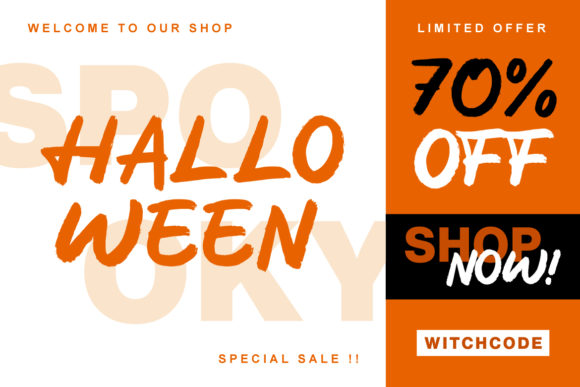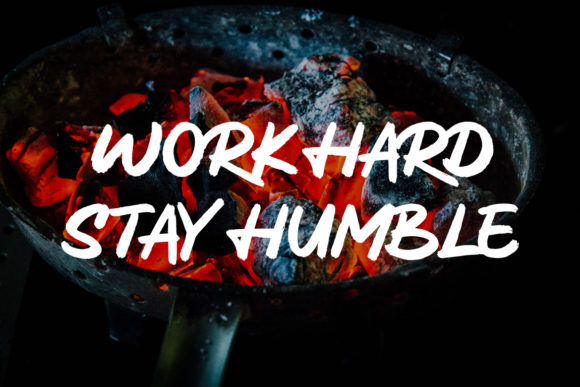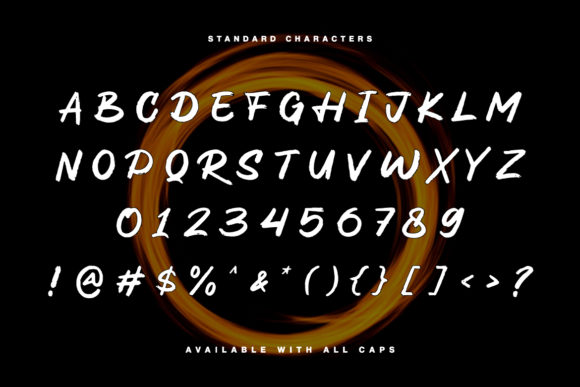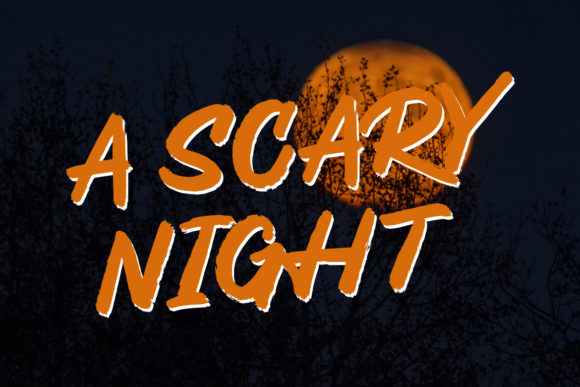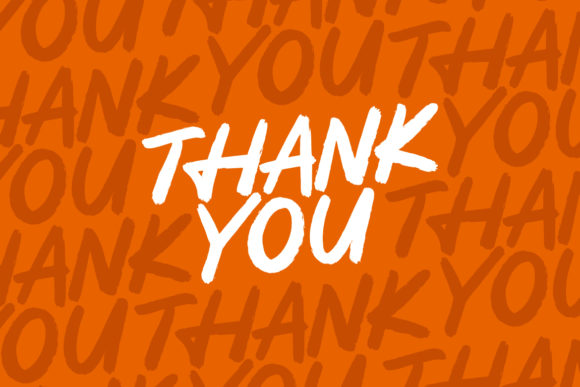
Saverous Font
About Saverous Font
Saverous is an extraordinary handwritten typeface that stands out with its distinct and one-of-a-kind charm. This font serves as the perfect companion to breathe life into your DIY projects, adding a touch of creativity and elegance to every endeavor.
The uniqueness of Saverous lies in its carefully crafted characters, each carrying an air of authenticity and creativity. Whether you’re designing personalized crafts or artistic creations, this font’s individuality sets your projects apart, making them truly special.
With Saverous at your disposal, your DIY projects are elevated to a whole new level. Its gorgeous strokes and artistic flourishes infuse a sense of beauty and sophistication, making your creations shine with originality.
This font’s versatility knows no bounds, as it complements a wide range of DIY projects. From handmade greeting cards to custom wall art, Saverous adds a touch of elegance and personalization, making your creations resonate with the heart and soul of your artistic vision.
Beyond its aesthetic appeal, Saverous ensures readability, making it ideal for conveying messages and expressions through the written word. Its handwritten nature brings a warmth and genuineness that captivates the reader, making them feel connected to your project on a deeper level.
Whether you’re an experienced designer or just starting your creative journey, Saverous empowers you to explore new horizons in DIY projects. Its unique style sparks inspiration, encouraging you to venture into uncharted territories of creativity and design.
When used in digital formats, Saverous retains its charm, adding an artistic touch to your online presence. Whether it’s on social media graphics or blog headers, the font’s allure captures the attention of viewers, leaving a lasting impression.
In summary, Saverous is a font that celebrates individuality and creative expression. Its unique handwritten style adds an exquisite touch to your DIY projects, making them come alive with beauty and sophistication. Let Saverous be your creative partner, igniting a world of possibilities in the realm of design and artistic endeavors!